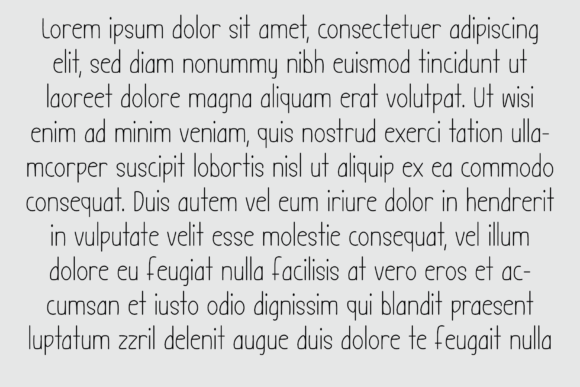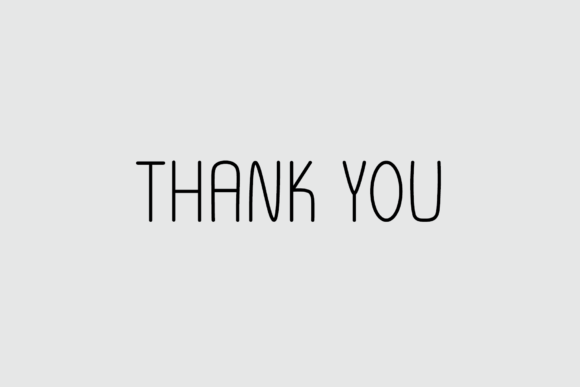
Introducing Alliance Font: A Simple yet Whimsical Handwritten Typeface
In the world of typography, fonts play a crucial role in conveying the tone and personality of a design. For designers and crafters looking for a typeface that is both simple and friendly, Alliance Font is an excellent choice. This beautiful handwritten font is perfect for adding a touch of whimsy and quirkiness to your designs, making it ideal for a wide range of projects.
What is Alliance Font?
Alliance Font is a carefully crafted handwritten typeface that exudes a sense of simplicity and friendliness. Its unique blend of elegance and playfulness makes it an excellent addition to any design. Whether you’re working on a logo, wedding invitation, quote, advertisement, or print material, Alliance Font is sure to brighten up your project and leave a lasting impression.
Key Features of Alliance Font
• Simple and Friendly: Alliance Font boasts a clean and approachable design that makes it perfect for a wide range of applications.
• Whimsical and Quirky: This font’s playful and quirky nature adds a touch of personality to any design, making it stand out from the crowd.
• Versatile: Alliance Font is suitable for various design projects, including logos, wedding invitations, quotes, advertisements, print materials, magazines, and more.
• Easy to Read: The font’s clear and legible design ensures that your message is conveyed effectively, making it perfect for body text and headings.
Use Cases for Alliance Font
Alliance Font’s versatility makes it an excellent choice for various design projects. Here are some use cases where this font truly shines:
• Logos: Create a memorable brand identity with Alliance Font. Its unique blend of simplicity and whimsy makes it perfect for logos that need to stand out.
• Wedding Invitations: Add a touch of elegance and playfulness to your wedding invitations with Alliance Font. Its friendly and approachable design sets the tone for a joyous celebration.
• Quotes and Typography: Use Alliance Font to create visually stunning quotes and typography. Its clear and legible design ensures that your message is conveyed effectively.
• Advertisements: Grab attention with Alliance Font’s playful and quirky design. This font is perfect for creating eye-catching advertisements that leave a lasting impression.
• Print Materials: From brochures to business cards, Alliance Font is an excellent choice for various print materials. Its versatility and legibility make it perfect for body text and headings.
• Magazines: Use Alliance Font to add a touch of personality to your magazine designs. Its unique blend of simplicity and whimsy makes it perfect for article titles, headings, and body text.
Tips for Using Alliance Font
To get the most out of Alliance Font, here are some tips to keep in mind:
• Experiment with Font Sizes: Alliance Font looks great in various font sizes. Experiment with different sizes to find the perfect balance for your design.
• Pair with Other Fonts: Combine Alliance Font with other fonts to create a unique and visually appealing design. Its friendly and approachable nature makes it easy to pair with other typefaces.
• Use it Confidently: Alliance Font is a versatile typeface that can be used in a wide range of design projects. Use it confidently, and you’ll love the results.
In conclusion, Alliance Font is a beautiful handwritten typeface that is perfect for designers and crafters looking for a simple yet whimsical font. Its unique blend of elegance and playfulness makes it an excellent addition to any design. With its versatility, legibility, and friendly nature, Alliance Font is sure to brighten up your projects and leave a lasting impression.